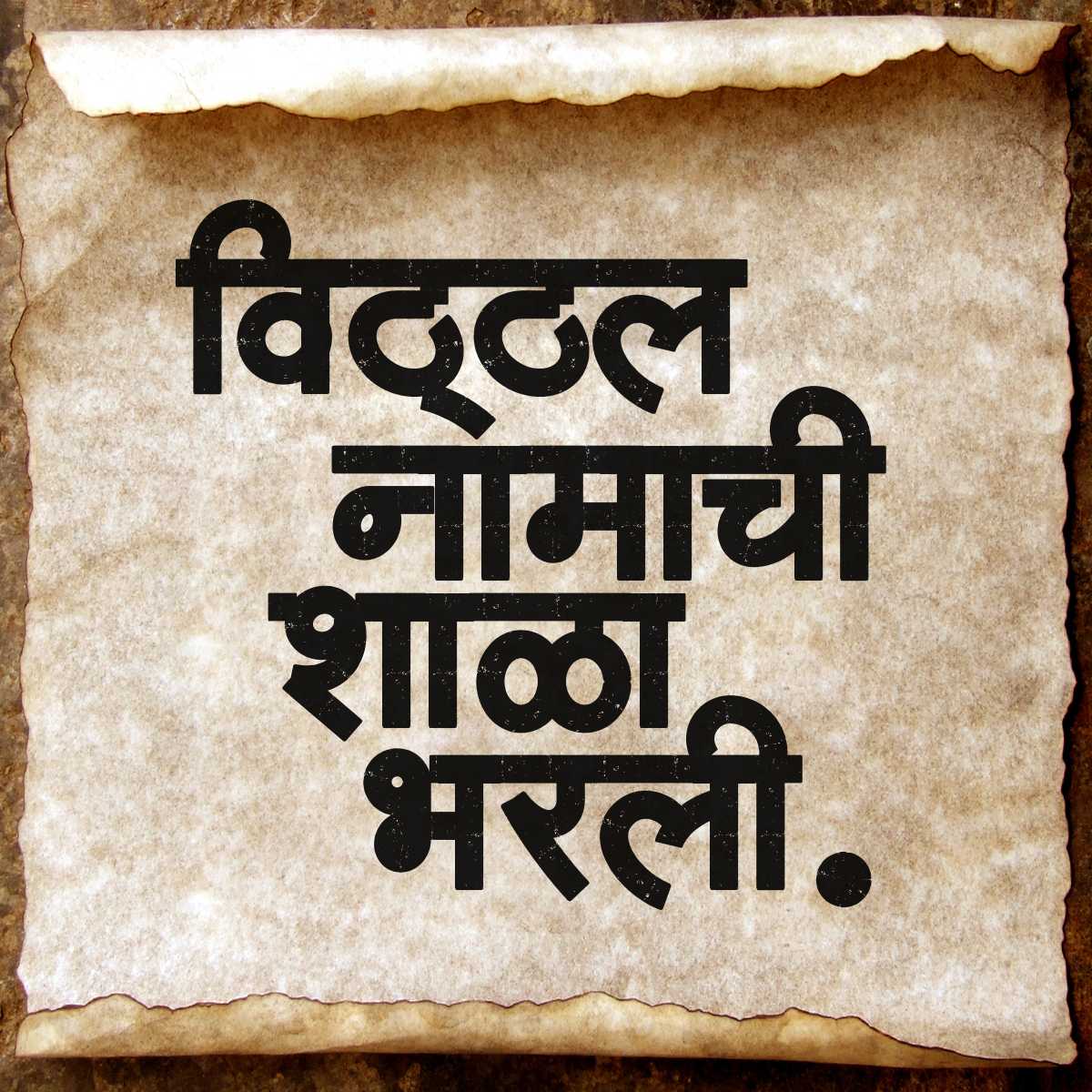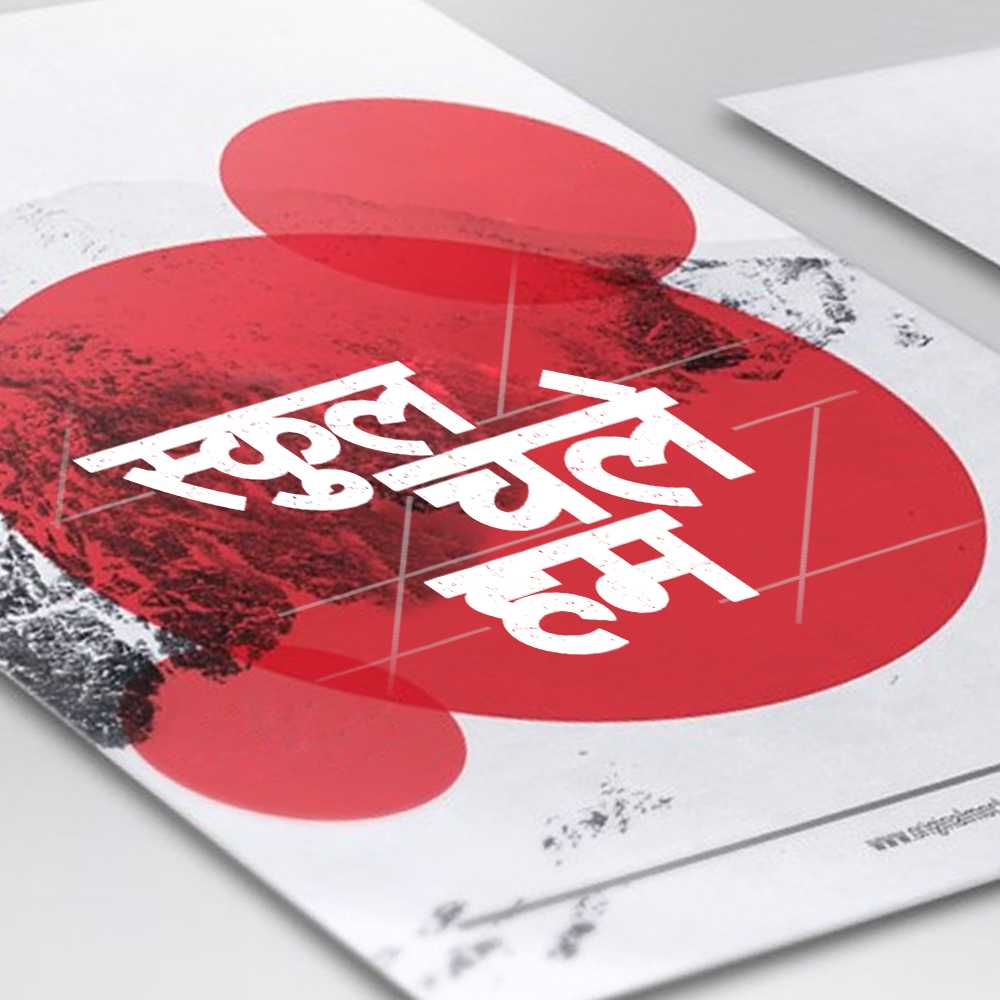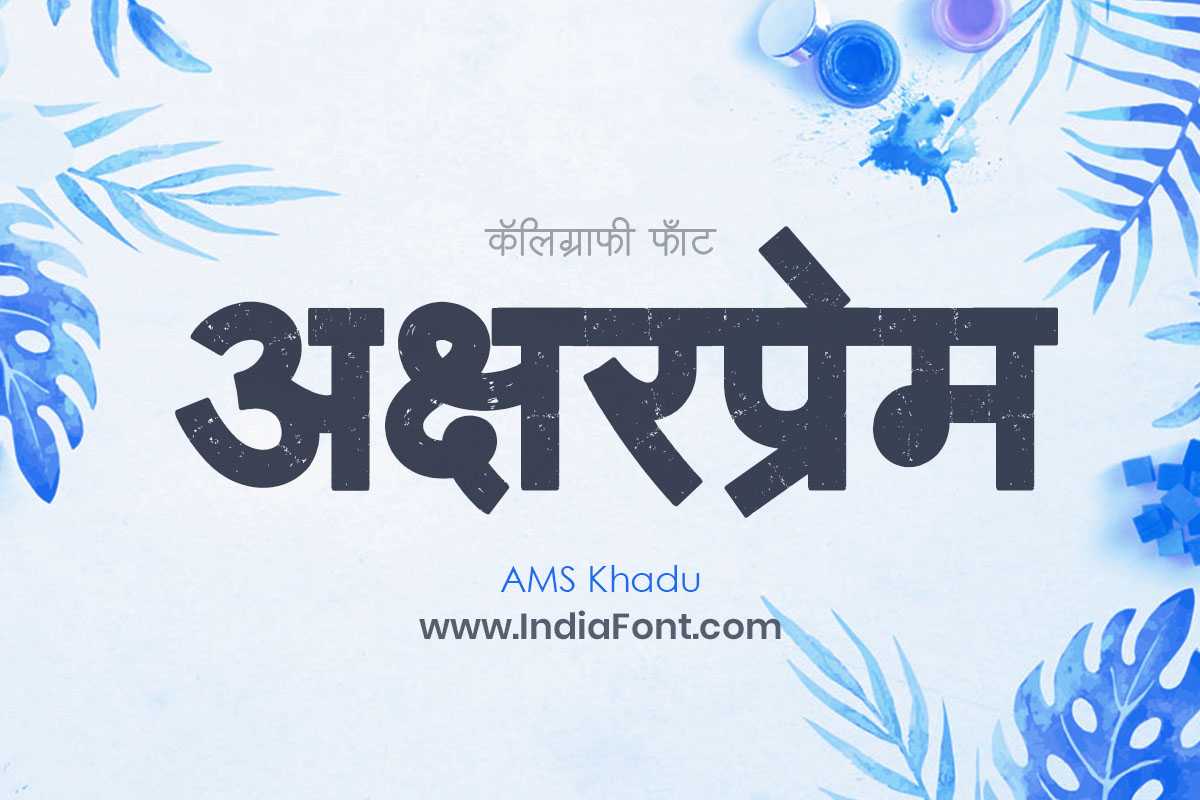
AMS Khadu
Step into a world of whimsy and creativity with AMS Khadu, a decorative font that adds a playful touch to your designs. Whether you're searching for free AMS fonts, specifically looking for AMS Khadu font download options, or exploring AMS decorative fonts, AMS Khadu invites you to think outside the box.
About AMS Khadu Font
Step into a world of whimsy and creativity with AMS Khadu, a decorative font that adds a playful touch to your designs. Whether you're searching for free AMS fonts, specifically looking for AMS Khadu font download options, or exploring AMS decorative fonts, AMS Khadu invites you to think outside the box. This decorative font combines elegance with functionality, making it perfect for various design applications.
AMS Khadu is a professionally crafted decorative typeface that brings clarity and style to your projects. Designed with attention to detail, it supports hindi and marathi characters flawlessly.
Whether you're working on invitations, logos, posters, or other creative projects, AMS Khadu delivers consistent performance across both digital and print media. This carefully designed typeface ensures readability and visual appeal in all your design work.
About AMS Khadu Typography Style
AMS Khadu is a professionally crafted decorative font that exemplifies modern Hindi typography design. This free font is perfect for designers seeking professional branding and logo design projects.
Available in 1 weight and supporting hindi, marathi scripts, AMS Khadu offers exceptional versatility for both digital and print media. Whether you're working on invitations, logos, posters, this carefully designed typeface ensures consistent quality and professional results across all your typography projects.